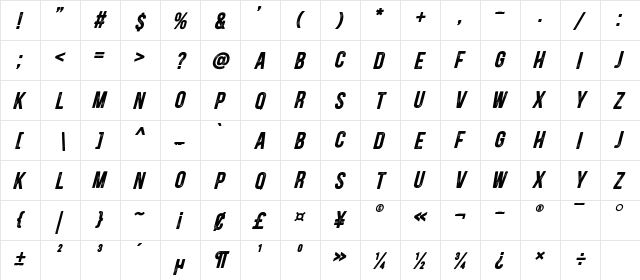
Blackside Rust Bold Italic
| Designer | Vilogsign 2018 |
Design Context for Blackside Rust Bold Typeface
Blackside Rust Bold offers clean, dependable letterforms without strong stylistic allegiance, making it a practical choice for designers who need flexibility. The slanted form adds forward momentum and visual energy. The heavy weight commands attention and anchors typographic hierarchies.
Pro Tip: Use Blackside Rust Bold for emphasis, pull quotes, and subheadings where its slanted energy can add rhythm to the layout.